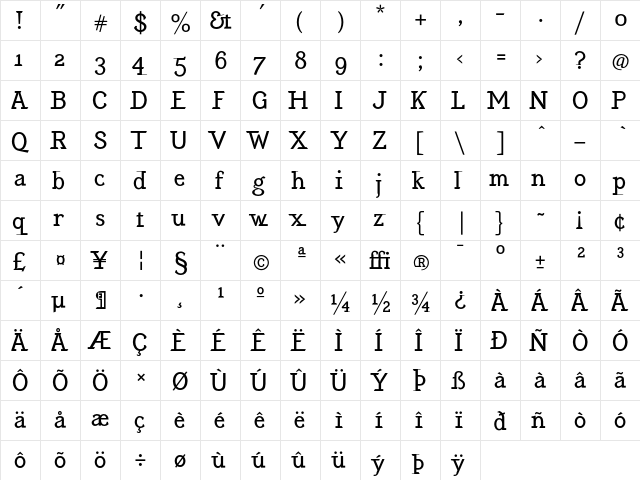
EquipoizeSerif Regular
Design Context for EquipoizeSerif Typeface
EquipoizeSerif carries the refined structure of traditional serif typography, with bracketed terminals and considered proportions that communicate credibility and craft.
Pro Tip: Use EquipoizeSerif for editorial body copy and considered headline work. Pair with a neutral sans for UI elements or captions to create a classic hierarchy.